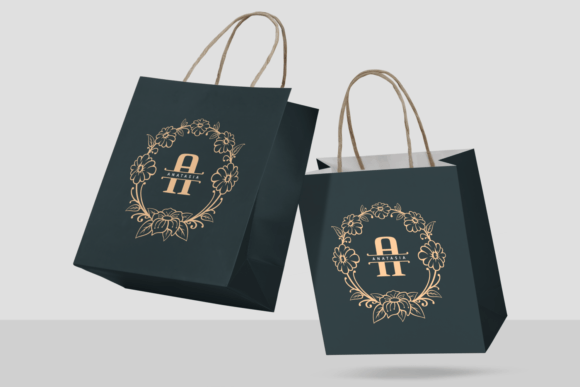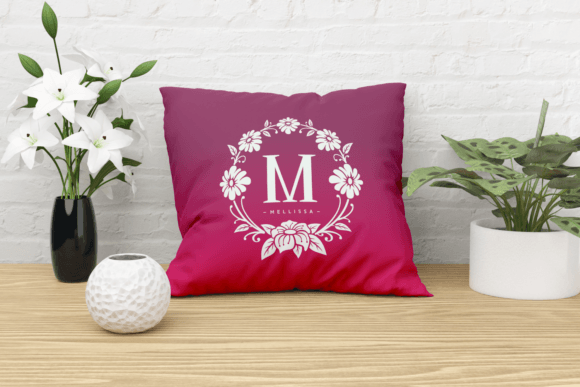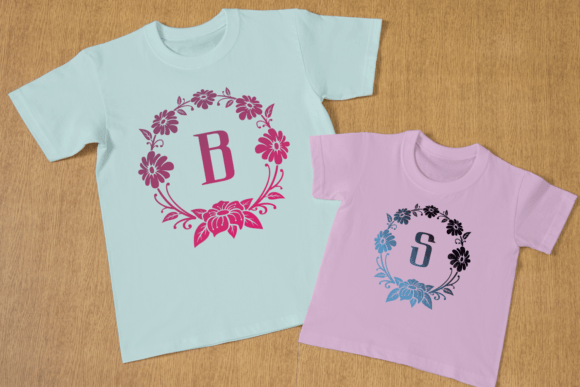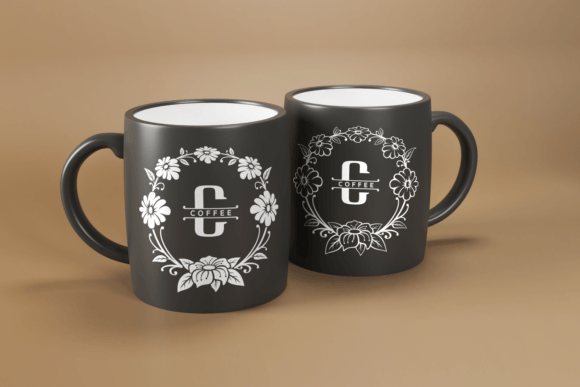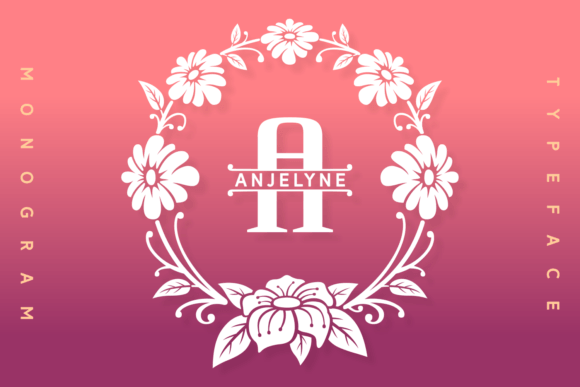
Introducing Anjelyne Font: The Ultimate Floral Monogram Decorative Font
Are you a designer or crafter looking for a unique and elegant font to elevate your creative projects? Look no further than Anjelyne Font, a stunning floral monogram decorative font that is sure to impress. In this article, we’ll dive into the features and benefits of Anjelyne Font, and explore how it can be used to create beautiful designs for a variety of applications.
What is Anjelyne Font?
Anjelyne Font is a beautifully crafted floral monogram decorative font that features elegant letters surrounded by gorgeous flowers. This font is perfect for creating decorative designs that require a touch of sophistication and whimsy. With its intricate details and delicate charm, Anjelyne Font is ideal for a range of creative projects, from fabric prints and cards to invitations, logos, and more.
Key Features of Anjelyne Font
So, what makes Anjelyne Font so special? Here are just a few of its key features:
- Floral Monogram Design: Anjelyne Font features beautiful floral monograms that add a touch of elegance to any design.
- Decorative Letters: The letters in Anjelyne Font are intricately designed with beautiful flowers and details, making them perfect for creating decorative designs.
- Versatile: Anjelyne Font can be used for a wide range of creative projects, from fabric prints and cards to invitations, logos, and more.
Uses for Anjelyne Font
Anjelyne Font is a versatile font that can be used for a variety of creative projects. Here are just a few ideas to get you started:
- Fabrics and Textiles: Use Anjelyne Font to create beautiful fabric prints for quilts, clothing, and home decor.
- Stationery and Cards: Add a touch of elegance to your cards, invitations, and stationery with Anjelyne Font.
- Logos and Branding: Use Anjelyne Font to create unique and memorable logos for your business or brand.
- DIY Crafts: Anjelyne Font is perfect for a range of DIY crafts, from scrapbooking and journaling to paper crafting and mixed media.
Why Choose Anjelyne Font?
So, why choose Anjelyne Font over other decorative fonts? Here are just a few reasons:
- Unique Design: Anjelyne Font features a unique and beautiful design that will set your creative projects apart from the rest.
- Elegant and Whimsical: This font combines elegance and whimsy, making it perfect for a range of creative projects.
- High-Quality: Anjelyne Font is a high-quality font that is designed to deliver exceptional results.
Tips for Using Anjelyne Font
Here are a few tips for using Anjelyne Font in your creative projects:
- Experiment with Colors: Try pairing Anjelyne Font with different colors and textures to create unique and eye-catching designs.
- Mix and Match: Combine Anjelyne Font with other fonts and design elements to create interesting and dynamic designs.
- Pay Attention to Scale: Make sure to adjust the scale of Anjelyne Font to fit your design needs.
- Have Fun: Most importantly, have fun and be creative with Anjelyne Font!